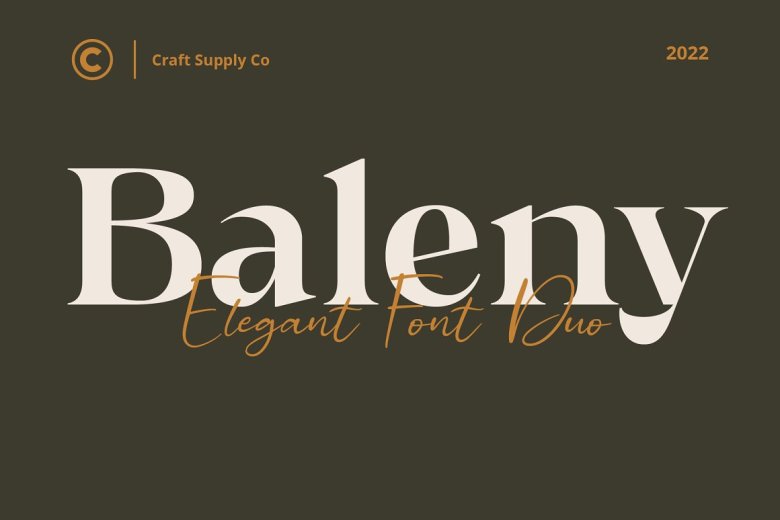
Baleny Elegant Font
Baleny Elegant Font Duo is a combination of a serif font & beauty handwritten script font based on the expression of real handwriting. Baleny Elegant Font Duo will work perfectly for fashion, e-commerce brands, trend blogs, wedding boutiques or any business that wants to appear upscale and chic.
Baleny Elegant Font Duo